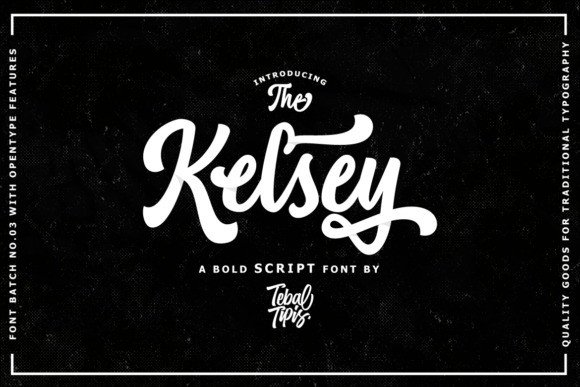
Kelsey Script Font Free
Introducing Kelsey Script Font – is a beautiful curvy script typeface with a natural handwritten feel. This handmade font will make your design has a beautiful natural touch for each details. This font is PUA encoded which means you can access all of the glyphs and swashes with ease!
It features a varying baseline, smooth lines, gorgeous glyphs and stunning alternates. Fall in love with its incredibly versatile style and use it to create gorgeous wedding invitations, beautiful stationary art, eye-catching social media posts, and much more!